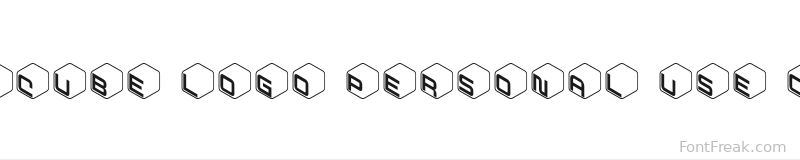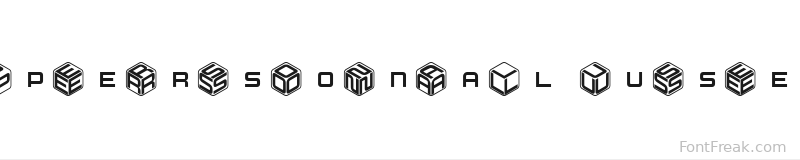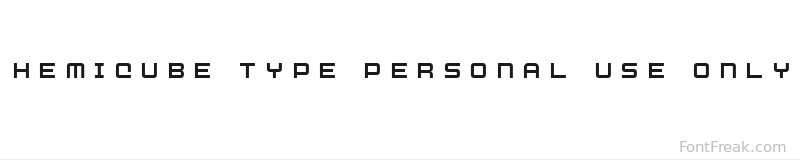
Hemicube Logo PERSONAL USE ONLY
Hemicube Type PERSONAL USE ONLY
Hemicube PERSONAL USE ONLY
The Hemicube Logo PERSONAL USE ONLY font by Mans Greback is a distinctive display typeface that captivates with its geometric elegance. This font showcases a unique design characterized by hexagonal shapes, which lend it a modern and innovative feel. The stroke weight is consistent throughout, creating a clean and cohesive look. The spacing between the characters is well-balanced, ensuring readability while maintaining an artistic flair. Decorative elements, such as the sharp angles and three-dimensional appearance, further enhance its visual appeal.
This font is ideal for various creative applications. Its bold and striking nature makes it perfect for branding projects, particularly logos that require a contemporary touch. Additionally, it works well for promotional materials, such as flyers and posters, where eye-catching typography is essential. The Hemicube Logo font can also be effectively used in digital media, such as website headers or social media graphics, to create a memorable online presence. Moreover, it can be a great choice for personal projects, like custom cards or invitations that aim to impress.
Targeting graphic designers, small business owners, and content creators, this font offers a versatile solution for those looking to make a statement. Whether you're designing for a startup or working on personal creative endeavors, the Hemicube font provides the perfect blend of style and functionality.
What truly sets the Hemicube Logo PERSONAL USE ONLY font apart is its innovative design that combines modern aesthetics with a playful geometric twist. This font is not just a typeface; it’s a visual experience that invites viewers to engage, making it a fantastic option for anyone seeking a bold yet refined typography solution. For those interested in incorporating this unique style into their projects, the Hemicube Logo PERSONAL USE ONLY font free download is an excellent opportunity to elevate your design work.